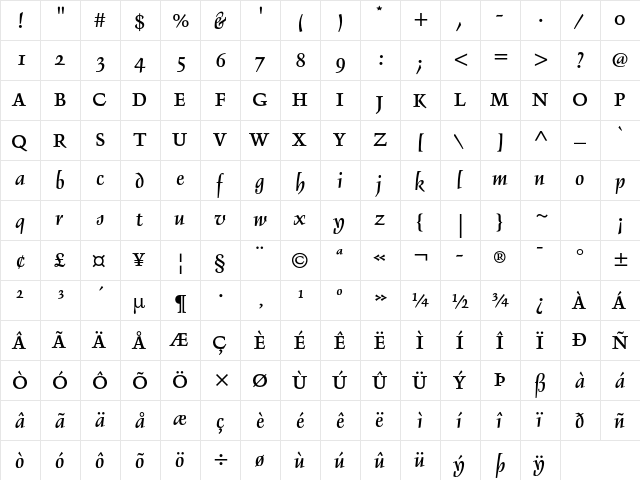
Delphin LT Std 2
| Designer | Georg Trump |
Design Context for Delphin LT Std Typeface
Delphin LT Std offers clean, dependable letterforms without strong stylistic allegiance, making it a practical choice for designers who need flexibility. Its slender proportions lend an understated elegance to any composition.